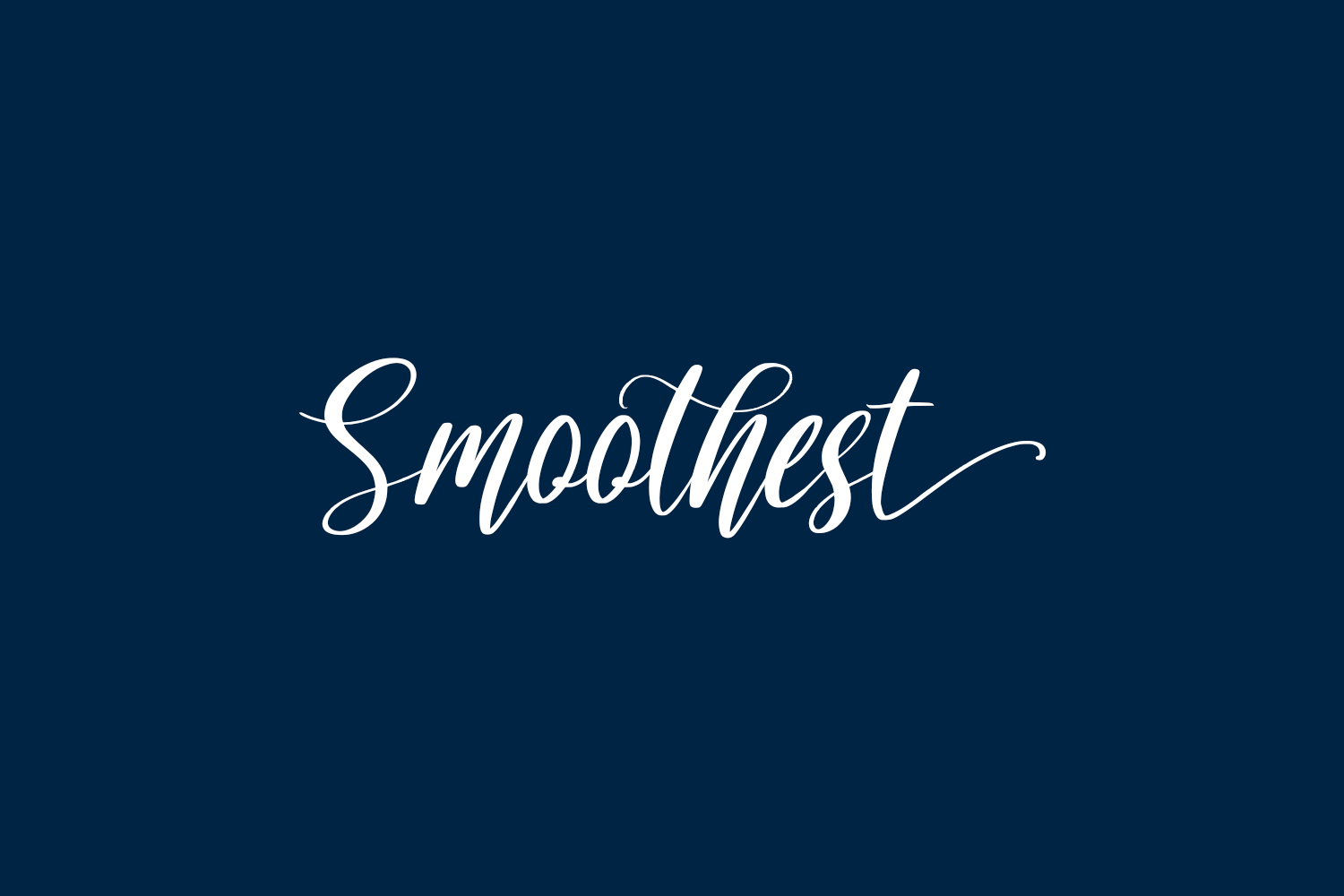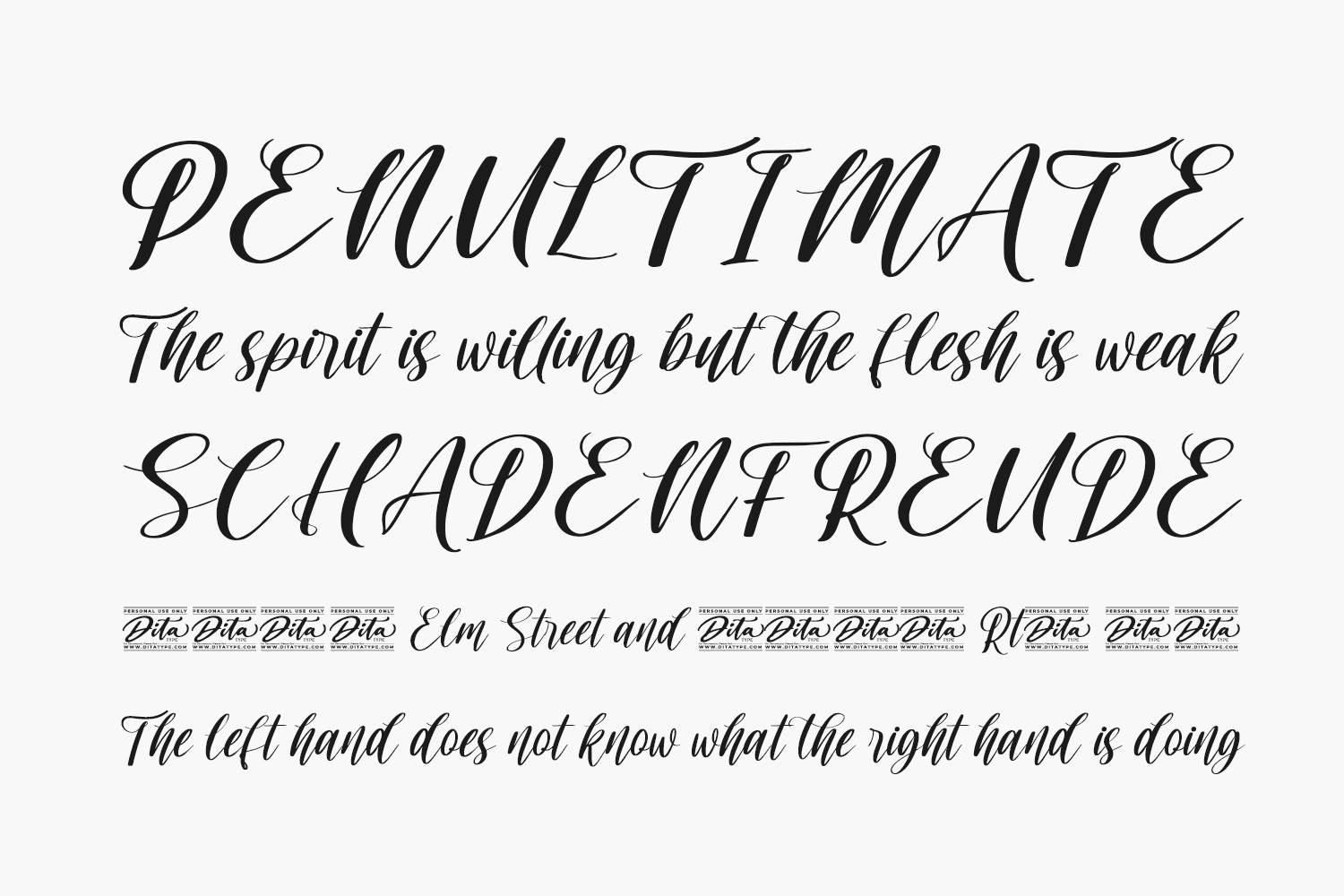
Smoothest Free Font is a flowing handwritten font, described by an elegant touch, perfect for your favorite projects. Fall in love with its incredibly distinct and timeless style and use it to create spectacular designs. Smoothest Free Font was designed by Ditatype is a demo and free for personal use only. Please purchase the full version for commercial use.